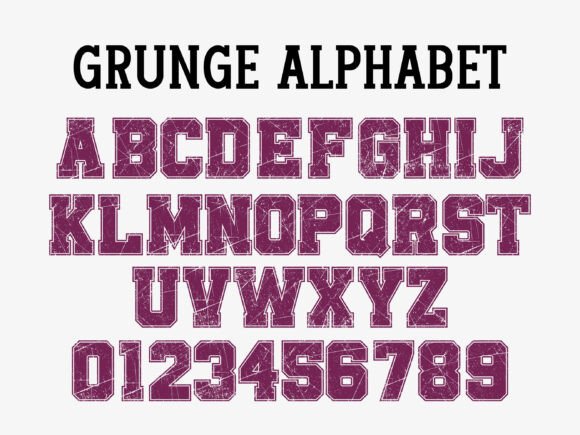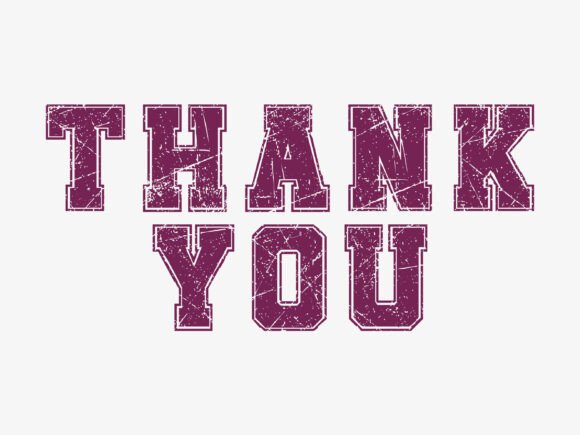
Introduction to Real Grunge Font
Real Grunge is a vintage display font with a distressed, edgy style.
Its rough, textured lines give it a bold, unique look, making it more than just a typeface Perfect for festive invitations, holiday cards, or any creative project, this font adds character and impact.
Key Features of Real Grunge Font
Why Choose Real Grunge Font?